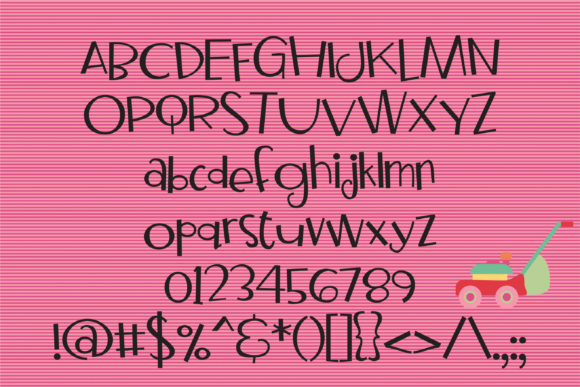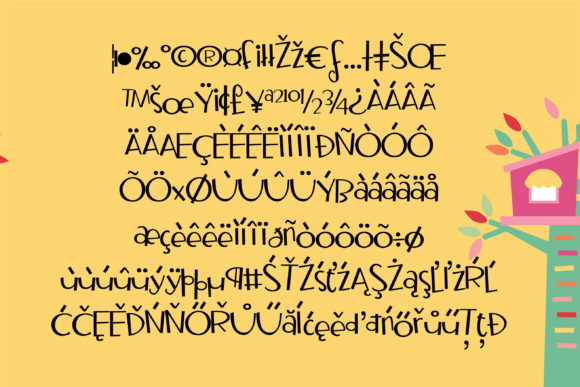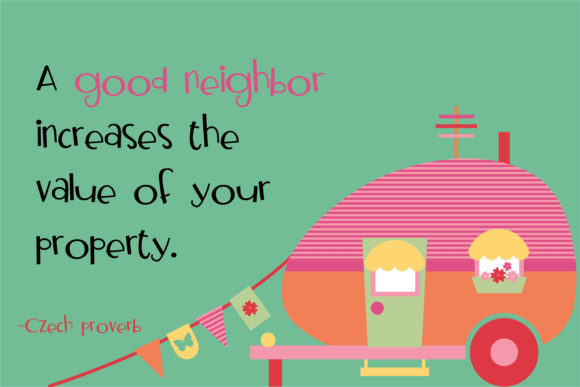
Introduction to Neighborhood Sans Font
As a designer, you’ve likely found yourself in a moment of pure creative bliss – staring at a blank canvas, waiting for the perfect font to bring your vision to life. The search is over, and we’re excited to introduce you to the whimsical Neighborhood Sans Font, the coordinated sister font of PN Neighborhood.
With its fun and bouncy baseline, Neighborhood Sans Font is the perfect addition to any high-quality design project. Whether you’re working on a free download or a paid commission, this versatile font is sure to elevate your creative project to new heights. As a valuable design resource, Neighborhood Sans Font offers a transparent background that seamlessly integrates with any design, making it a must-have for any serious designer.
Get ready to take your designs to the next level with Neighborhood Sans Font – the ultimate design companion for any creative project.
Key Features of Neighborhood Sans Font
- High-quality font with a unique, modern design ideal for creative projects
- Features a transparent background, allowing for seamless integration with backgrounds and other design elements
- Includes multiple weights and styles, providing flexibility for designers to create a range of visual effects
- Designed with a clean, minimalist aesthetic, making it suitable for a wide range of creative projects, from logos to digital products
- Resolution-independent, ensuring crisp and clear display on various screen sizes and resolutions
Honest Review: Neighborhood Sans Font
As a designer, I’m always on the lookout for high-quality fonts that can elevate my creative projects. Recently, I stumbled upon the Neighborhood Sans Font, and I’m excited to share my thoughts on this design resource.
What works well: ✨ The Neighborhood Sans Font is incredibly versatile, with a modern aesthetic that’s perfect for a variety of design projects. The font is highly legible, even at smaller sizes, making it ideal for body text and titles. Additionally, the font is available for free download, which is a major plus for designers on a budget.
- Transparent background, making it easy to layer over images
- Highly legible, even at smaller sizes
Any limitations: ⚠️ While the Neighborhood Sans Font is a great addition to any designer’s toolkit, it’s not without its limitations. The font is a sans-serif typeface, which may not be suitable for projects that require a more traditional or elegant look. Additionally, the font’s design is quite modern, which may not appeal to designers who prefer a more classic or timeless aesthetic.
Overall, I’m impressed with the Neighborhood Sans Font, and I think it’s a great addition to any designer’s toolkit. With its high-quality design, transparent background, and free download, it’s a design resource that’s hard to beat.
The Neighborhood Sans Font is perfect for a variety of creative projects, including logos, graphics, presentations, and documents. Its clean design and transparent background make it ideal for use in both digital and print designs.